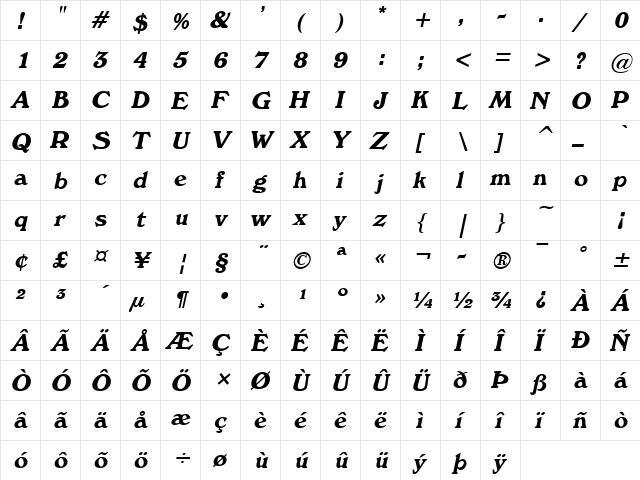
Windz Italic
Design Context for Windz Typeface
Windz takes a measured approach to typography — its balanced proportions and neutral character make it a reliable workhorse for both digital and print work. The slanted form adds forward momentum and visual energy.